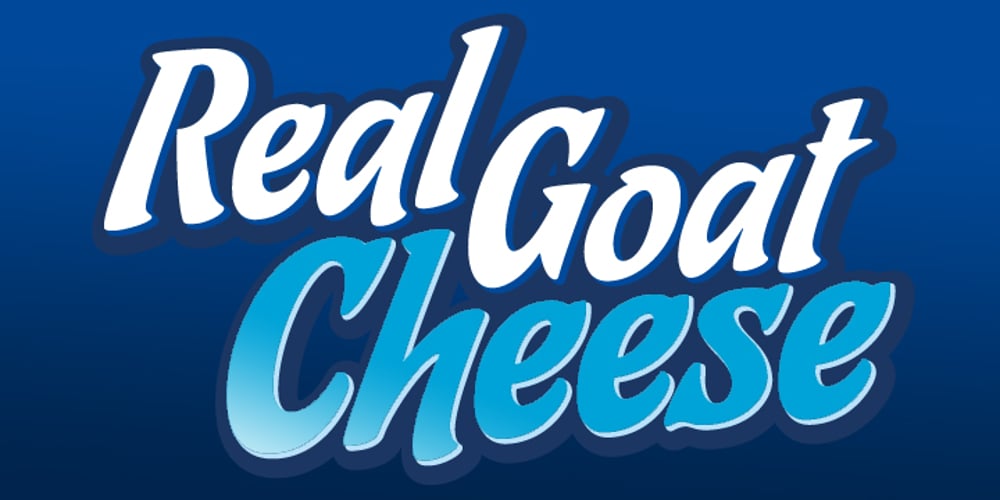
Ricotta Script Font Family was designed by Alejandro Paul, Angel Koziupa and published by Sudtipos. Ricotta Script contains 1 styles and family package options. Another unmistakable Koziupa/Paul production, Ricotta has very little baby fat for a sturdy brush script. What movement it shows is effective and integral to its expression, which is at once compact, lush and eye-catching. Ricotta, and its subtle details in just the right places, should feel at home among the bright and cheerful colors of dairy product and pizza packaging.